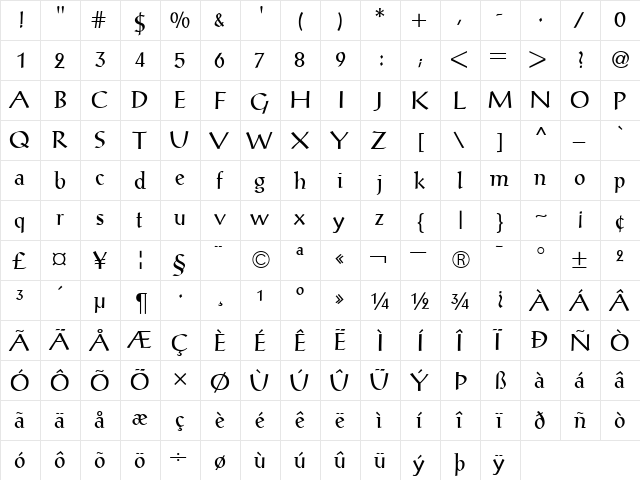
PostAntiquaBE Roman
PostAntiquaBE offers clean, dependable letterforms without strong stylistic allegiance, making it a practical choice for designers who need flexibility.